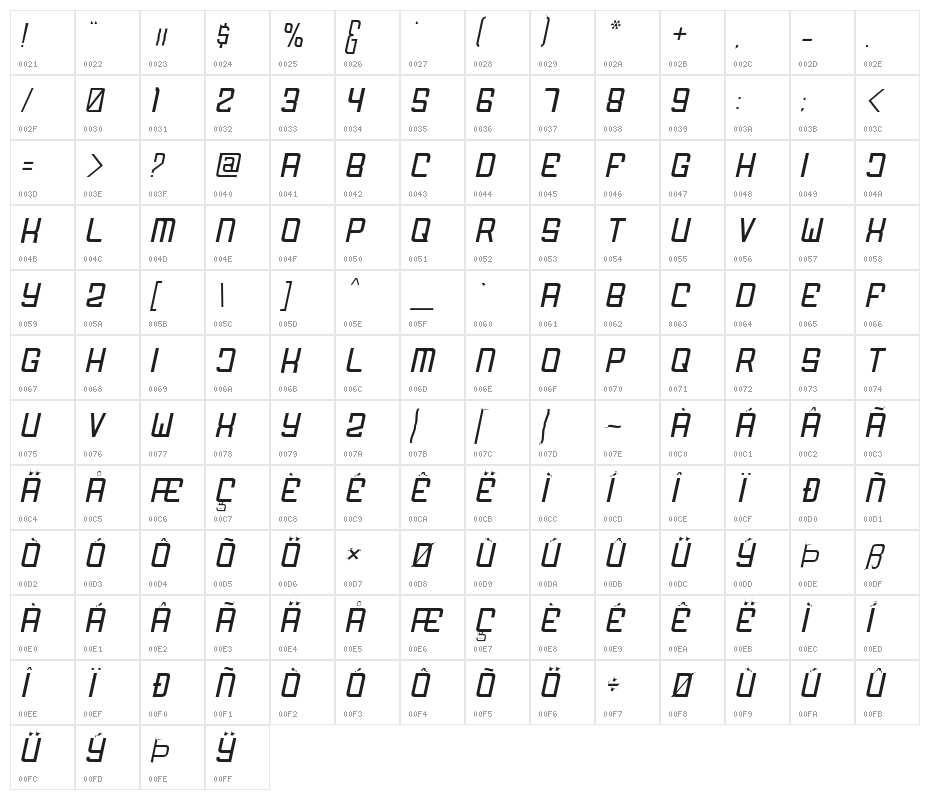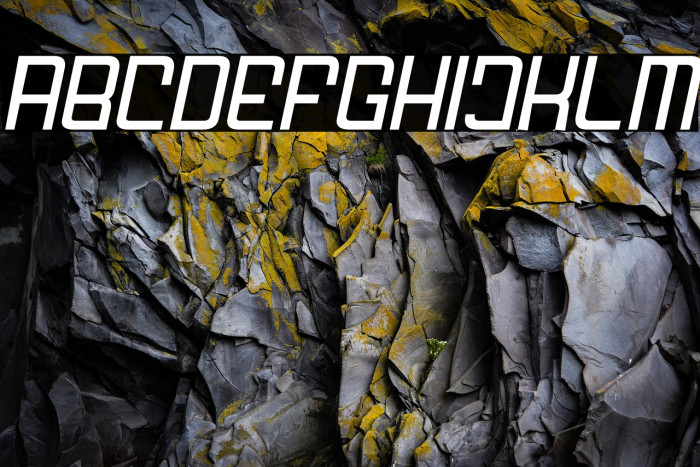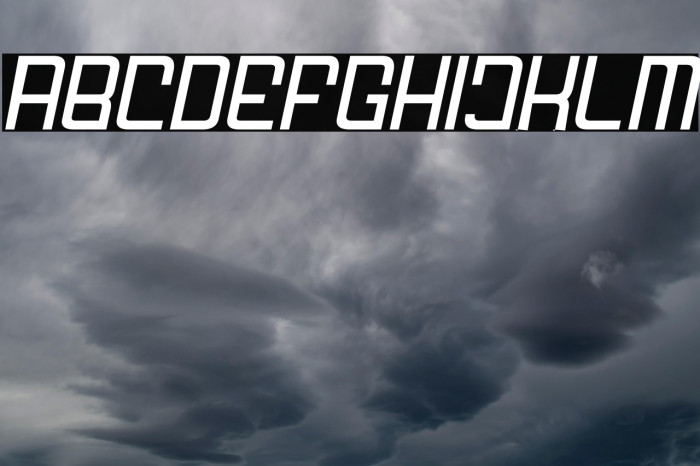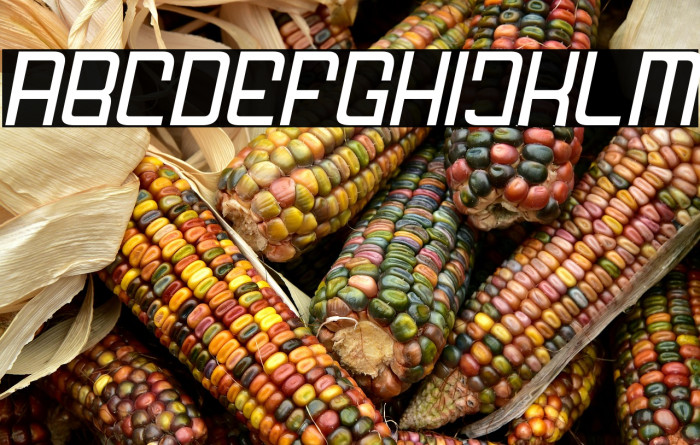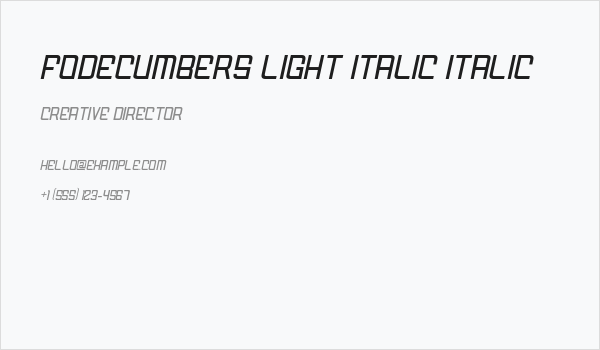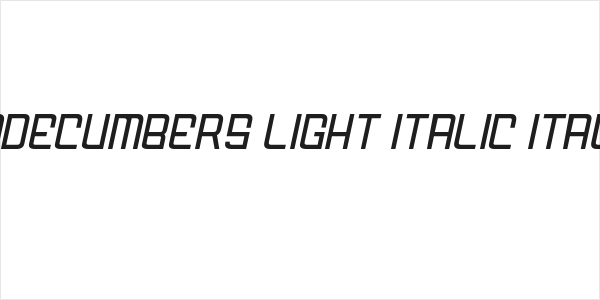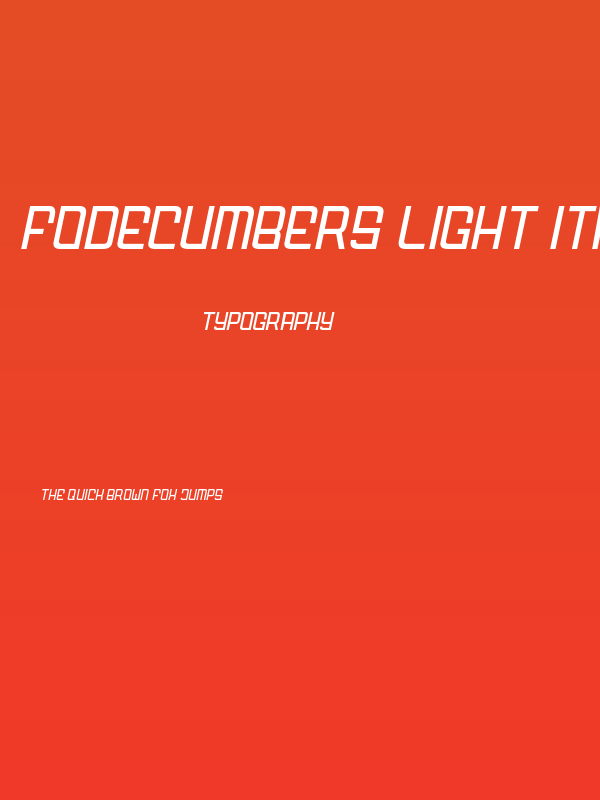
FODECUMBERS LIGHT ITALIC Italic Font
FODECUMBERS LIGHT ITALIC Italic Description
This font features a sleek, italicized design with a modern and futuristic aesthetic. The characters are elongated and slightly condensed, giving them a streamlined appearance. The strokes are consistent in width, providing a uniform look across all letters and numbers. The font maintains a clean and professional style, making it suitable for various applications. The special characters are well-integrated, matching the overall design with a subtle flair. Its italic nature adds a dynamic and forward-moving feel, enhancing its appeal for creative projects.
| Proposed Projects | Ideal for tech branding, futuristic designs, modern advertising, and dynamic presentations. |